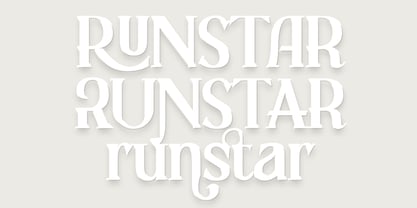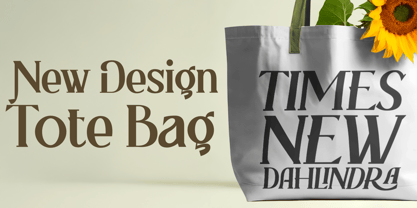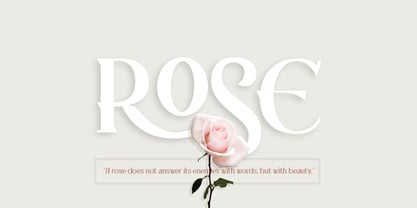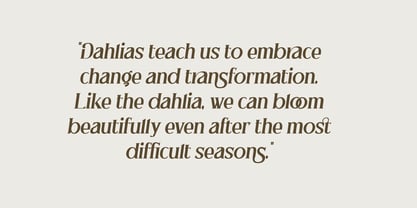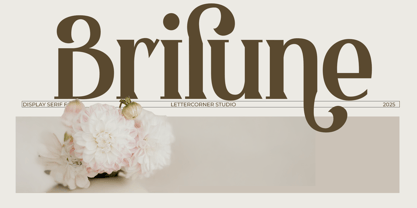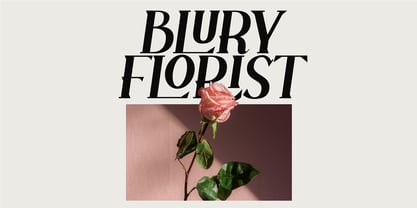
Brilune
by Mevstory Studio
The Brilune Font Family was designed by Muhammad Afif Ersya and published by Mevstory Studio. Brilune contains 2 styles and family package options. More about this family
Introducing Brilune, a Serif typeface that blossoms with grace and timeless charm.
Inspired by the gentle rhythm of wildflowers in bloom, Bloomira captures the essence of natural beauty and handwritten warmth. Each stroke flows like petals caught in a breeze — soft, intentional, and deeply personal.
Whether gracing a wedding invitation, a boutique logo, or heartfelt stationery, Brilune brings a touch of softness and sophistication to every design. It's more than a font — it's a quiet whisper of elegance, growing with every letter.
Let your words bloom with Brilune